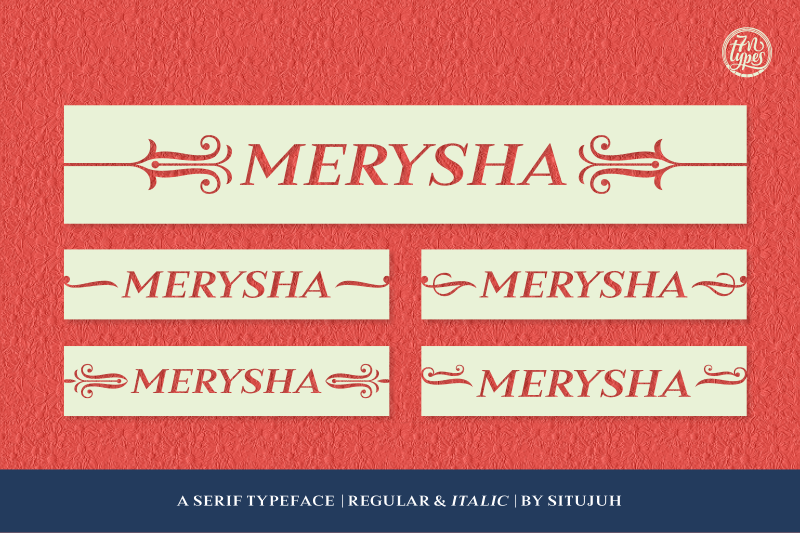
Merysha is a classical looking serif font. It is easy to read and neat. What’s also great, it comes with decorative embellishments that match the font perfectly. The Merysha is a versatile font that can be used as titles, headlines or as body text. Personal use: FREE (Donation is much appreciated!) Commercial use: BUY it only on Creative Fabrica: https://www.creativefabrica.com/product/merysha/ref/87 Contact me [c7nazara@gmail.com] or visit my website https://7ntypes.com if you have any request or question. Thank you. |